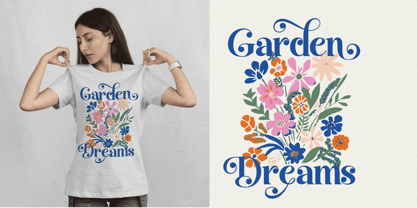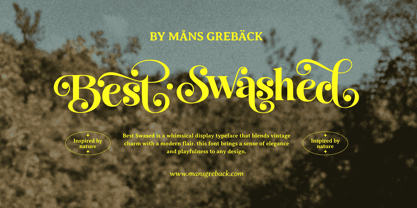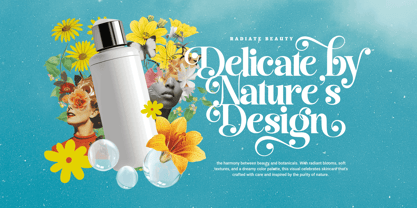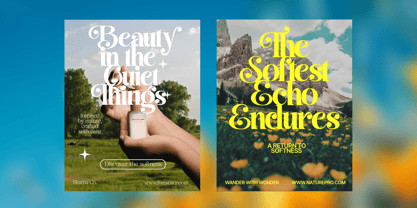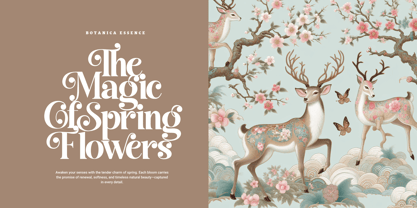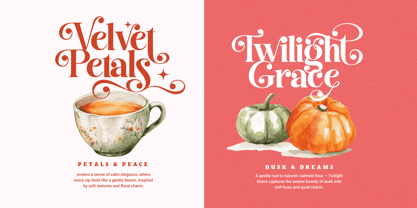
Best Swashed
by Mans Greback
The Best Swashed Font Family was designed by Måns Grebäck and published by Mans Greback. Best Swashed contains 2 styles and family package options.
Best Swashed is a decorative serif typeface designed by Mans Greback, radiating bold charm and ornamental flair. Each letterform is crafted with striking swirls and curling terminals, giving the impression of vintage signage infused with playful elegance. The uppercase characters stand with dramatic presence, while the lowercase maintains harmony with refined, flowing details. Its unique personality comes from the fusion of classic serif structure with elaborate embellishments, making it both readable and visually captivating. From lavish headlines to expressive branding, Best Swashed delivers artistry in every curve. The font is built with advanced functionality and guaranteed top-notch quality, containing stylistic and contextual alternates, ligatures and more automatic and manual features; all to give you full control and customizability. It has extensive lingual support, covering all Latin-based languages, from North Europa to South Africa, from America to South-East Asia. It contains all characters and symbols you'll ever need, including all punctuation and numbers. Mans Greback is known for crafting high-quality, expressive typefaces that blend artistic creativity with technical precision, ensuring each font is both functional and visually distinctive.
About Mans Greback
Måns Grebäck is a type designer and font creator specializing in script typography, but with a portfolio containing a vast selection of styles. Typefaces from Måns Grebäck are used as company and product logotypes, as well as headlines and in advertisement by a wide range of industries world-wide. Founded by Måns Grebäck in 2010, Mans Greback AB originally went under the name of Mawns Fonts and later Aring Typeface AB. While the foundry has its seat Örebro, Sweden, Måns also lives in Portugal. The Premium Foundry page can be viewed Here.